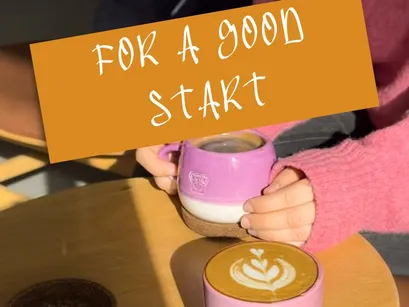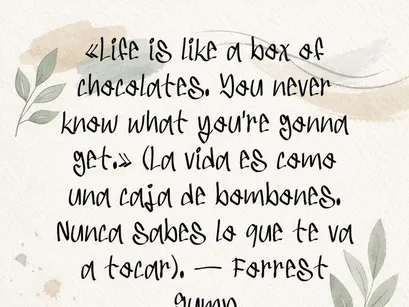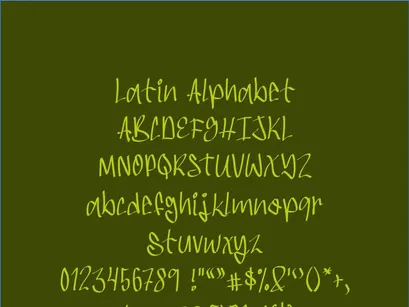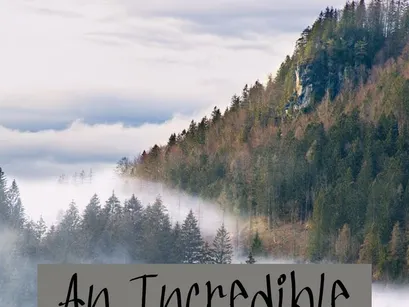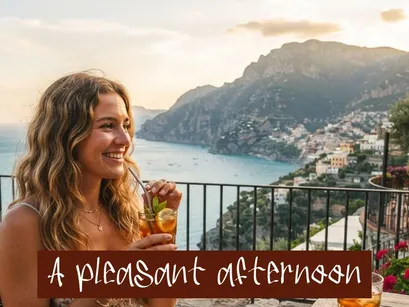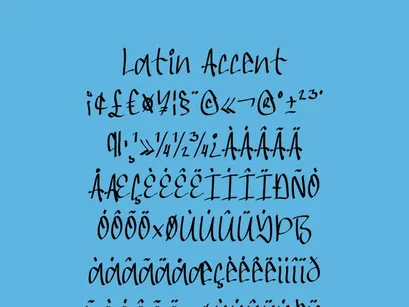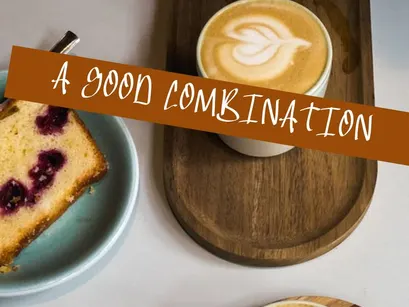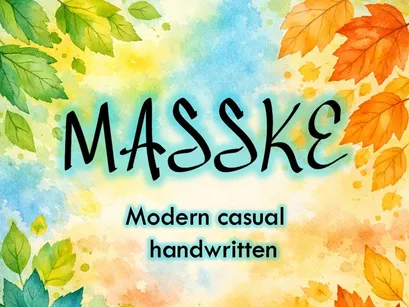
MASSKE is a modern, casual, handwritten typeface with a fresh, expressive, and natural style. Its firm, slightly irregular strokes evoke authentic handwriting, making it ideal for projects that aim to convey energy, creativity, and a personal touch.
It is perfect for artisanal branding, planner covers, inspirational quotes, digital design, and visual content featuring watercolor or natural backgrounds.